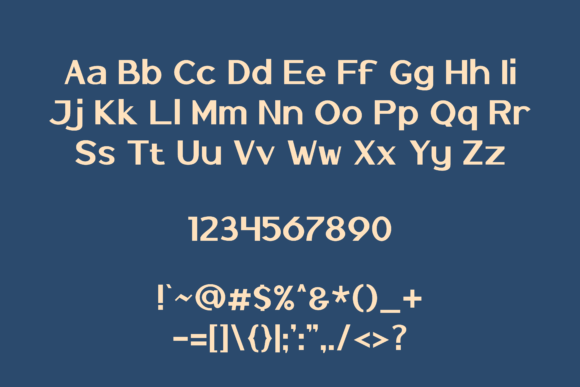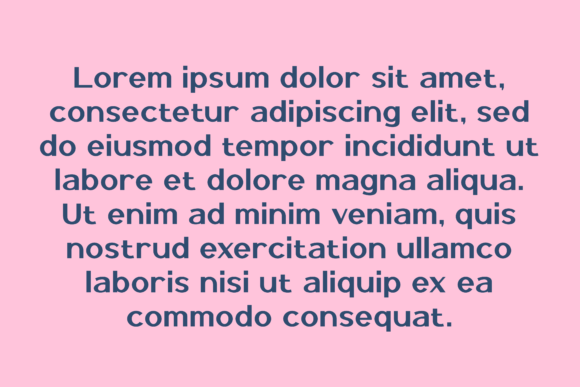
Introduction to Nangkod Font
Remember that moment when you’re brainstorming ideas for a creative project, and the perfect font suddenly pops into your head? It’s like the missing puzzle piece that brings your design to life. For designers, finding the right font can be a game-changer. It’s what sets your project apart and gives it that extra oomph. And if you’re looking for a font that exudes a touch of vintage charm, you’re in luck.
The Nangkod Font is a stunning example of a vintage-styled sans serif font that’s perfect for logos, branding, titles, and subtitles. With its thick lettered design, it adds a unique touch to any project. And the best part? It’s available for free download, making it an excellent resource for designers on a budget. Whether you’re working on a personal project or a client-based design, the Nangkod Font is sure to elevate your work to the next level.
Key Features of Nangkod Font
- High-quality design resource ideal for creative projects requiring a unique touch
- Transparent background allows for seamless integration with different design elements
- Available in multiple sizes, including 100px, 200px, and 300px, making it versatile for various design needs
- High-resolution design ensures crisp and clear display, even at larger sizes
- Unique and creative design makes it an excellent addition to any design resource collection
Honest Review: Nangkod Font
I recently came across the Nangkod Font and was excited to give it a try in my latest creative project. As a designer, I’m always on the lookout for high-quality design resources that can elevate my work.
One of the things that works well with the Nangkod Font is its clean and modern aesthetic. The font is perfect for projects that require a sleek and sophisticated look, and it’s especially great for designs with a transparent background.
Here are some of the key features that I like about the Nangkod Font:
- High quality design that’s perfect for creative projects
- Transparent background option for added flexibility
While the Nangkod Font is a great addition to any designer’s toolkit, there are a few limitations to be aware of:
- ⚠️ Limited font sizes available, which may not be suitable for all design needs
- ⚠️ Not as versatile as some other fonts on the market
Overall, I’m impressed with the Nangkod Font and would definitely recommend it to fellow designers. It’s a great choice for projects that require a modern and sophisticated look, and the free download option is a big plus.
Nangkod Font is a high-quality design resource perfect for creative projects that require a unique and elegant touch. With its transparent background, this font is highly versatile and can be used in a variety of applications.
Tips for Getting the Most Out of Nangkod Font
Experiment with different font sizes, colors, and combinations to create unique and eye-catching designs. Use the transparent background to create visually appealing graphics and logos.
Nangkod Font is perfect for creative projects such as:
Graphic design
Logo creation
Social media graphics
Presentations and reports
Alternatives to Nangkod Font
The Great Vibes Font is a high-quality, elegant script font that is perfect for creative projects such as wedding invitations, certificates, and other formal events. It is available for free download and has a transparent background, making it easy to use in any design resource.
Compared to Nangkod Font, Great Vibes Font has a more classic and sophisticated look, making it suitable for formal events. It is also more versatile and can be used in a variety of design contexts.
The Dancing Script Font is a fun and playful script font that is perfect for creative projects such as social media graphics, blog posts, and other casual designs. It is available for free download and has a transparent background, making it easy to use in any design resource.
Compared to Nangkod Font, Dancing Script Font has a more energetic and playful look, making it suitable for casual and fun designs. It is also more expressive and can add a touch of whimsy to any design project.
Does the Nangkod Font support a transparent background?
The Nangkod Font is a high-quality font that can be used with a transparent background, making it ideal for designs that require a clear or see-through look. However, the font’s transparency features may vary depending on the design software or application you are using. It’s best to test the font in your preferred design tool to ensure the desired transparency effect.